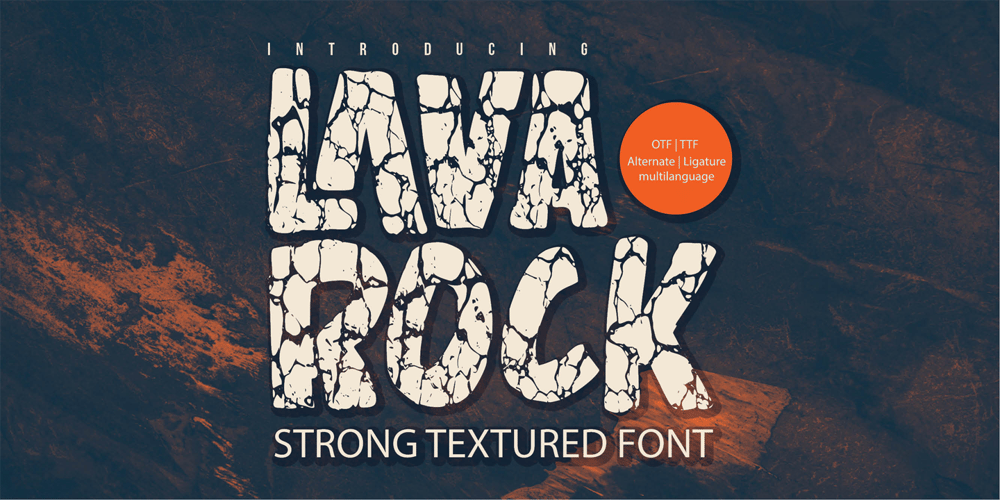
Lavarock Font Family was designed by Abdul Malik Wisnu, Anang Fibriyanto and published by Gassstype. Lavarock contains 1 styles and family package options. Here comes our new font Lavarock This is a Display Sans that is written casually and quickly.this font are made with brushes on Procreate. Then crafted carefully drawn into vector format. That is why lavarock has textured and strong characteristic more natural look to your text with a more modern look to your text. perfect for homeware designs,branding projects, Logo design, Quotes product packaging, especially and scary themes.